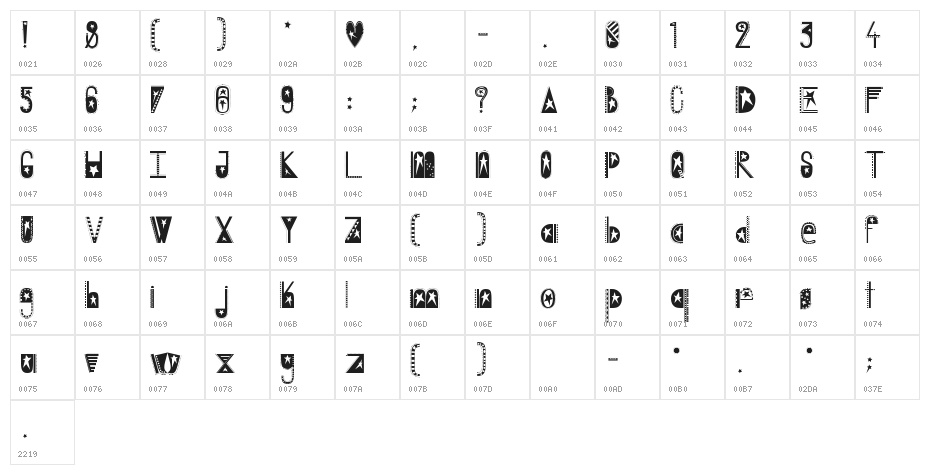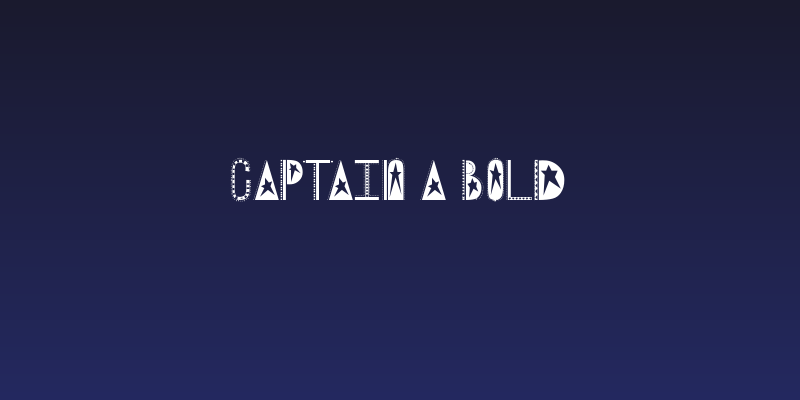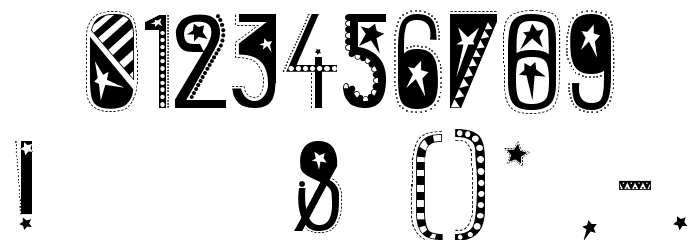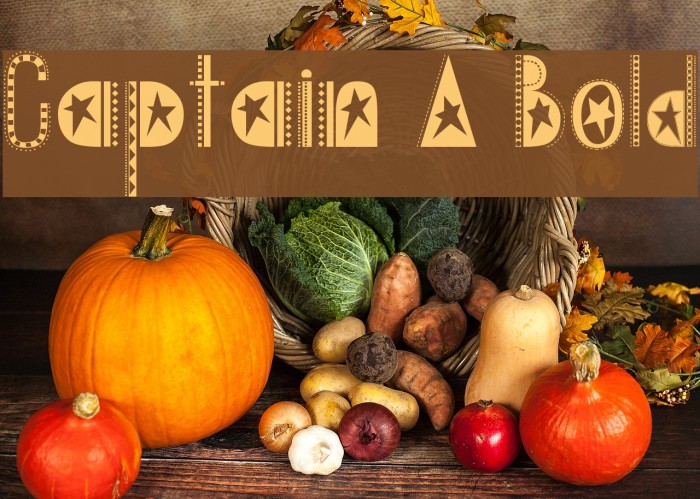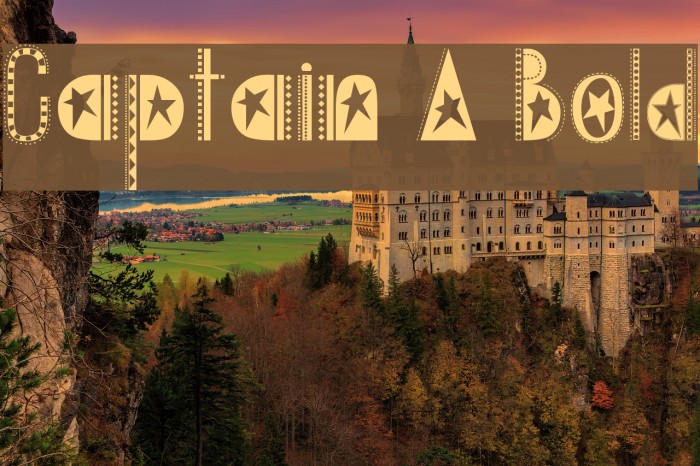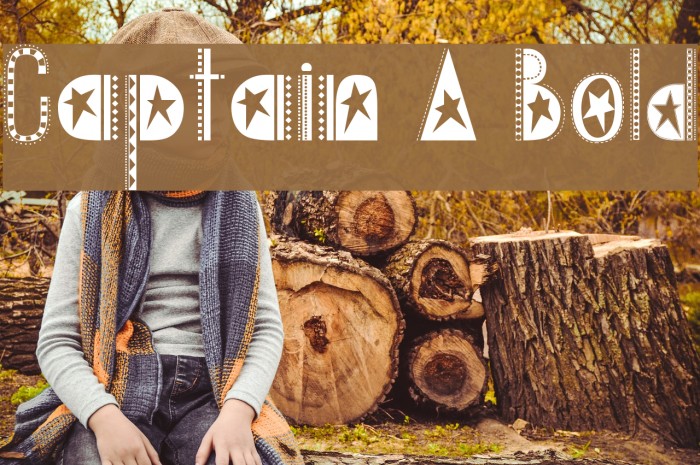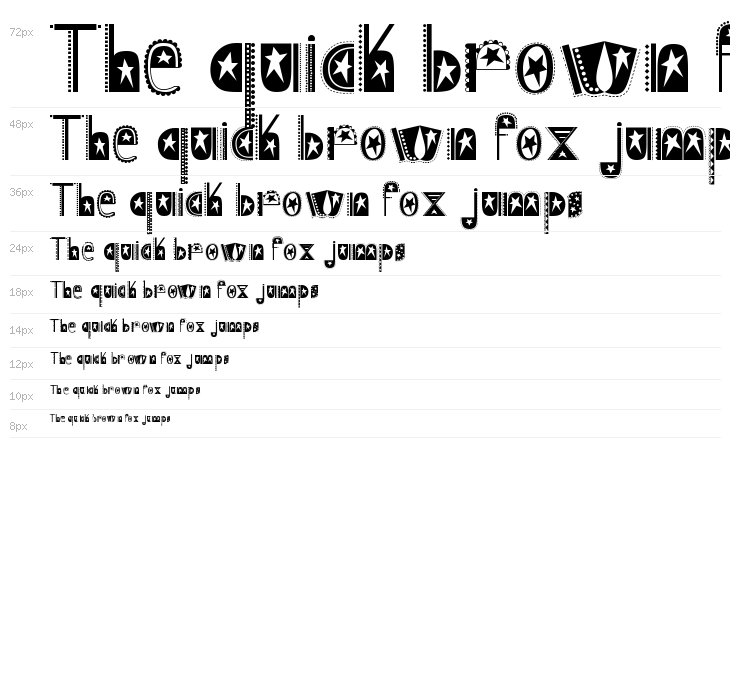
Captain A Bold Font
Captain A Bold Description
This decorative font features bold, eye-catching letters with unique star and stripe patterns embedded within each character. The uppercase letters are particularly striking, with each character showcasing a different combination of stars, dots, and stripes, creating a playful and dynamic appearance. The lowercase letters maintain this whimsical style, ensuring consistency throughout the typeface. Numbers and special characters also follow this theme, making the font ideal for projects that require a fun and engaging visual element. The overall design is reminiscent of a circus or carnival atmosphere, making it perfect for themed events or creative projects.
| Proposed Projects | Ideal for party invitations, children's book covers, themed event posters, and playful branding. |